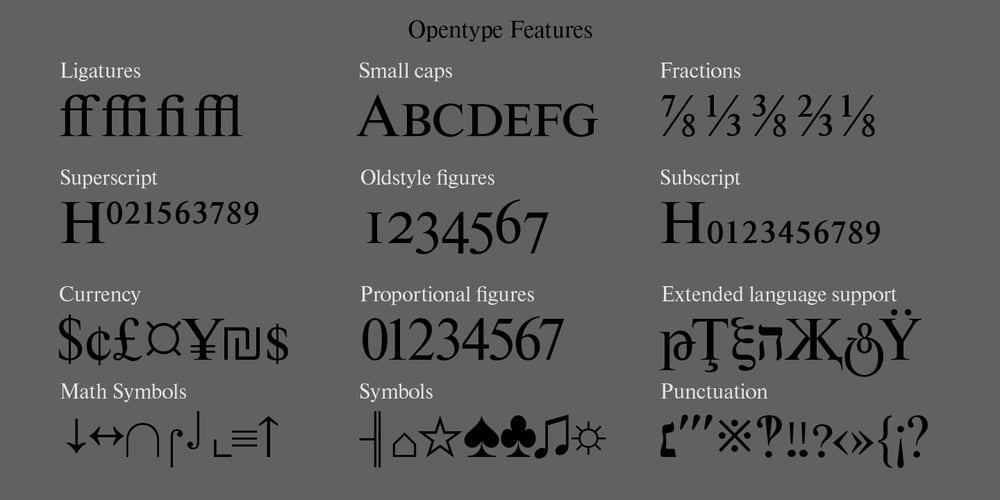
Newton Font Family was designed by Alexander Tarbeev, Vladimir Yefimov and published by ParaType. Newton contains 5 styles and family package options. Based on Times New Roman of Monotype, 1932, by Stanley Morison and Victor Lardent, and other versions of Times. It has many characteristics of an Old Style serif faces; it was designed for better legibility in combination with good economy. Widely used in books and magazines, reports and office documents, and also for display and advertising.